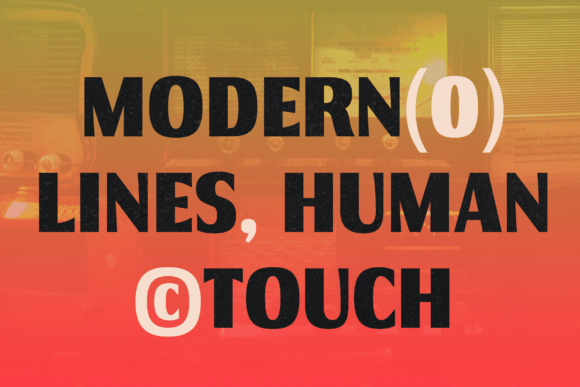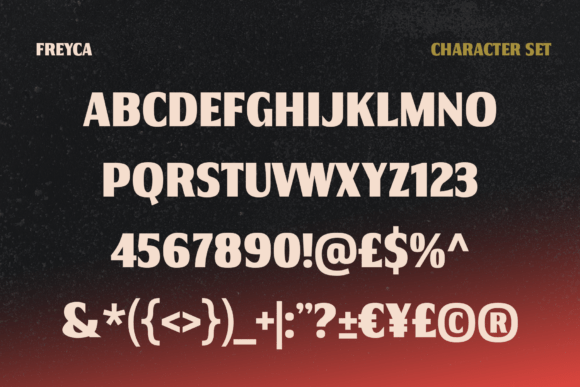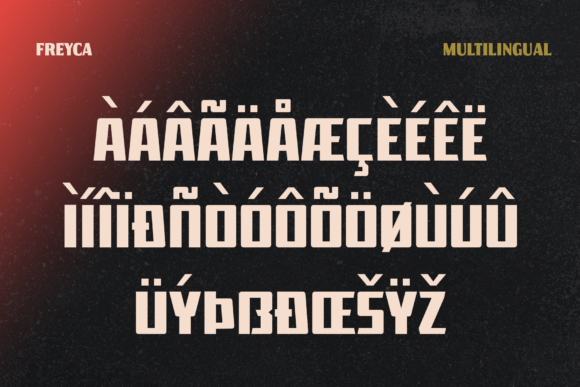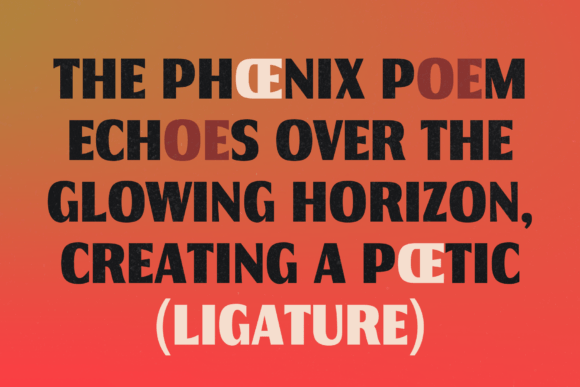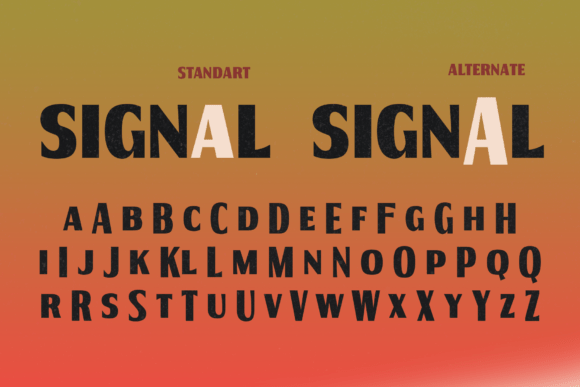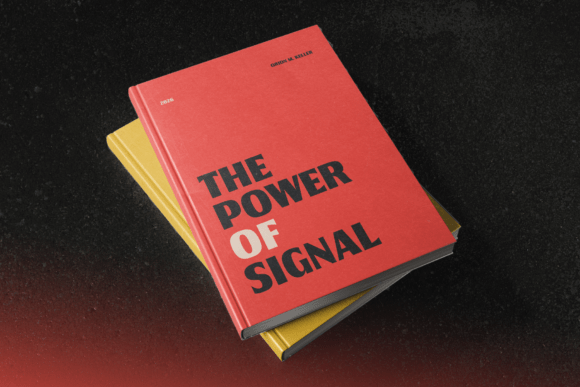
Freyca Font: The Perfect Blend of Modernity and Humanism
In the world of typography, finding the perfect font that balances structure and warmth can be a daunting task. However, Drizy Studio has successfully achieved this feat with Freyca, a modern humanist font that embodies the perfect marriage of sophistication and approachability. In this article, we’ll delve into the features and benefits of Freyca, and explore why it’s an ideal typographic solution for designers and crafters.
The Birth of Freyca
Freyca is a carefully crafted typeface designed by Drizy Studio, a team of experts dedicated to creating high-quality fonts that cater to the needs of modern designers. With a focus on creating a font that exudes both professionalism and warmth, Freyca was born out of a passion to bridge the gap between structure and personality.
Key Features of Freyca
Freyca boasts a range of features that make it an exceptional choice for various design applications. Some of its key characteristics include:
- Sophisticated, wide-bodied architecture: Freyca’s structure is both grounded and approachable, making it perfect for professional environments that require a touch of human personality.
- High-contrast terminals: The font’s high-contrast terminals add a level of sophistication and elegance, making it ideal for editorial headlines and luxury branding.
- Open apertures: Freyca’s open apertures ensure that the font remains clear and legible, even at smaller sizes, making it perfect for tech interfaces and high-impact advertisements.
Applications of Freyca
Freyca’s versatility makes it an excellent choice for a range of design applications, including:
- Editorial Headlines: Freyca’s high-contrast terminals and sophisticated architecture make it perfect for editorial headlines that require a touch of elegance and sophistication.
- Luxury Branding: The font’s warm and approachable feel makes it an excellent choice for luxury branding projects that require a level of sophistication and refinement.
- Tech Interfaces: Freyca’s clear and legible design makes it perfect for tech interfaces that require a font that is both modern and highly readable.
- High-Impact Advertisements: The font’s bold and sophisticated architecture makes it an excellent choice for high-impact advertisements that require a font that can grab attention and convey a message with clarity.
Why Choose Freyca?
With so many fonts available, why choose Freyca? Here are just a few reasons why Freyca stands out from the crowd:
- Perfect balance of structure and warmth: Freyca’s unique blend of sophistication and approachability makes it an excellent choice for designers who want a font that is both modern and timeless.
- High-quality design: Freyca is designed with precision and attention to detail, ensuring that it meets the highest standards of typographic excellence.
- Versatility: Freyca’s range of applications makes it an excellent choice for designers who want a font that can be used across multiple projects and mediums.
In conclusion, Freyca is a modern humanist font that offers the perfect blend of structure and warmth. With its sophisticated architecture, high-contrast terminals, and open apertures, Freyca is an excellent choice for designers and crafters who want a font that is both contemporary and timeless. Whether you’re working on editorial headlines, luxury branding, tech interfaces, or high-impact advertisements, Freyca is the ideal typographic solution for your project.